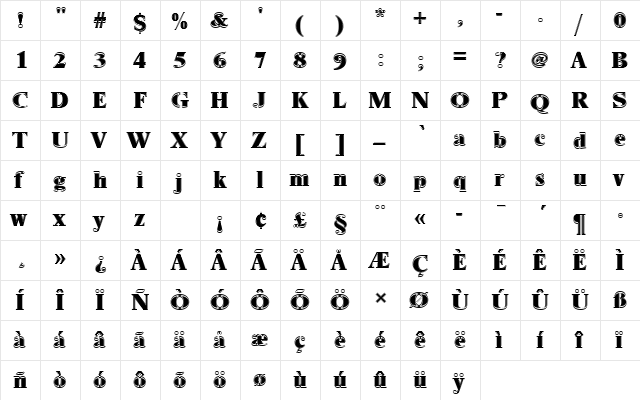
NimbusRomDExtBolIn1 Regular Font Preview
NimbusRomDExtBolIn1 Regular
Design Context for NimbusRomDExtBolIn1 Typeface
NimbusRomDExtBolIn1 is a composed and adaptable typeface that performs quietly and consistently across a wide range of design contexts.